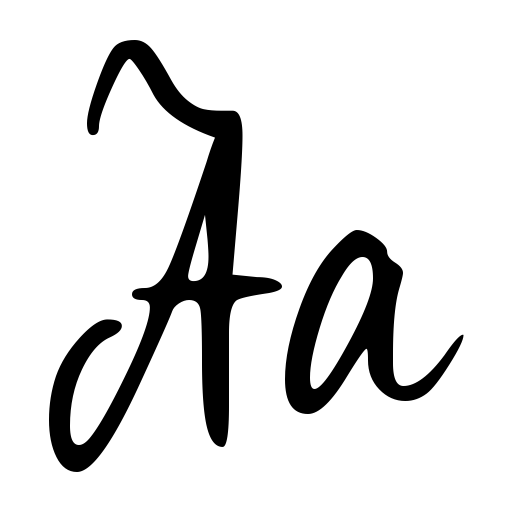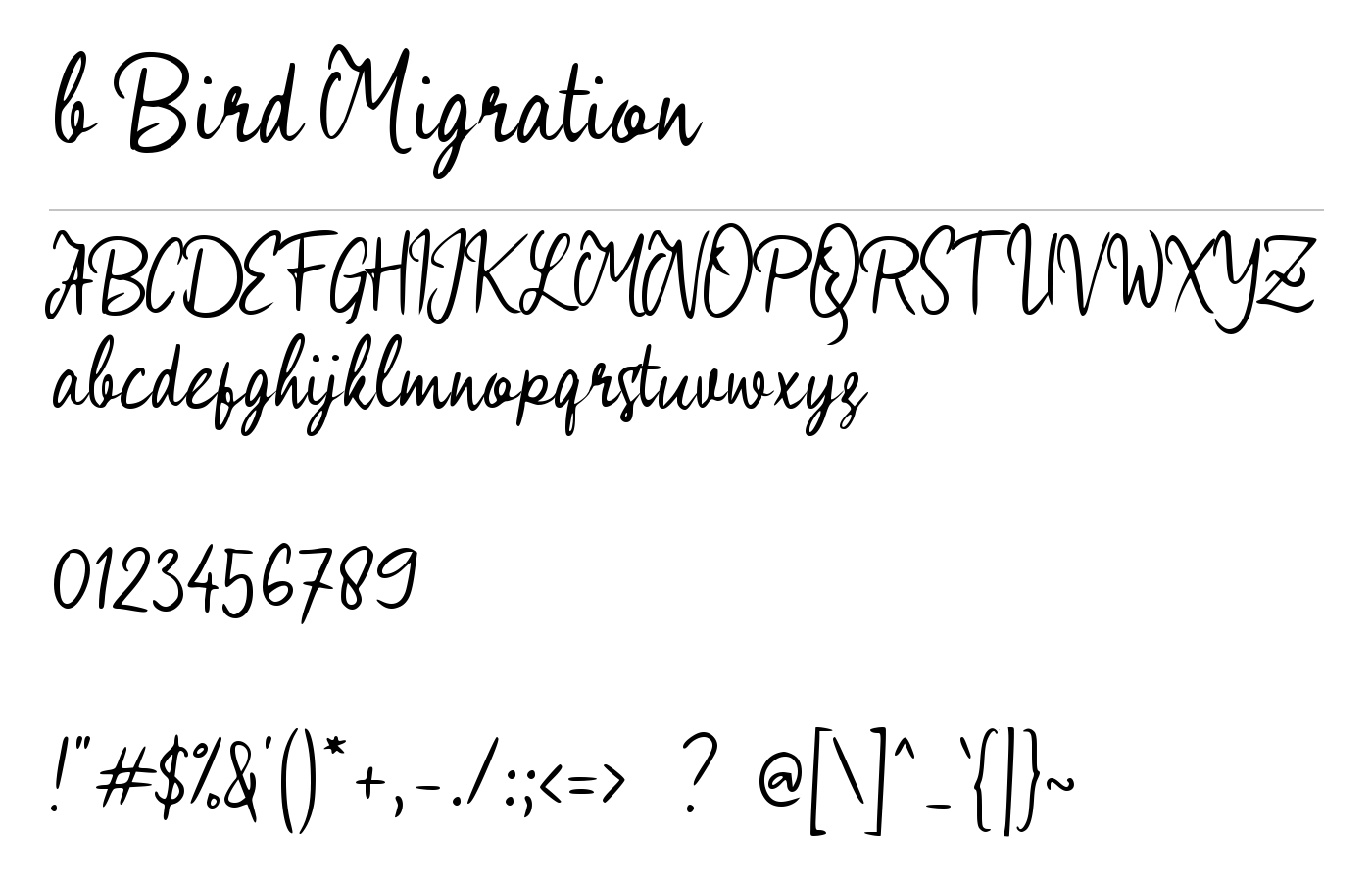
Bird Migration is a playful and elegant script font with a casual, hand-drawn feel. Its flowing, slightly irregular letterforms and moderate contrast give it a personal, approachable style perfect for creative projects, invitations, and branding that seeks a warm, friendly touch. This font works best in headlines, logos, and decorative text where its unique character can shine.
b Bird Migration Font